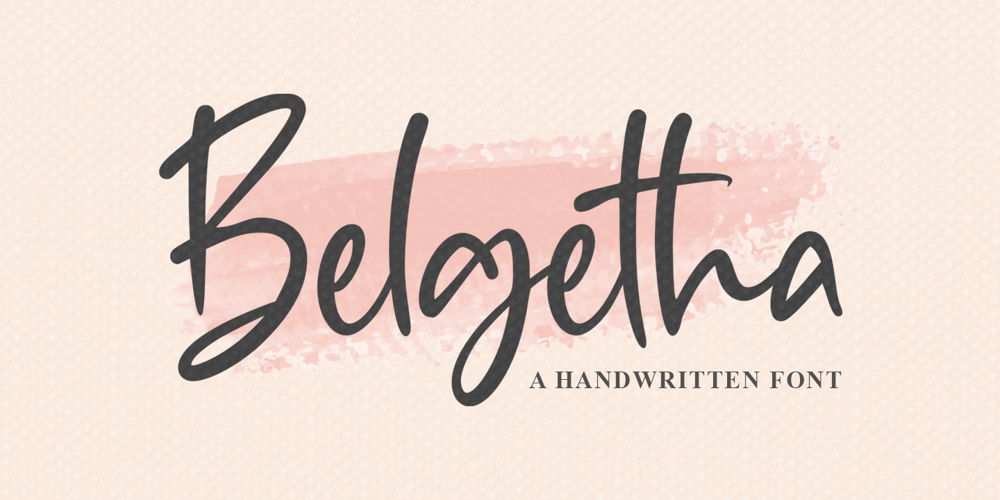
Belgetha
Belgetha font
Belgetha Font Family was designed by Bangkit Tri Setiadi and published by Blankids. Belgetha contains 1 styles and family package options. Introducing of our new product the name is Belgetha a Handwritten Font. Belgetha inspired by signature style this font is a fun theme very good for display, tshirt design, craft, quote sign, logotype and etcFEATURES : Uppercase Lowercase Number Punctuation Multilingual PUA Encode Opentype